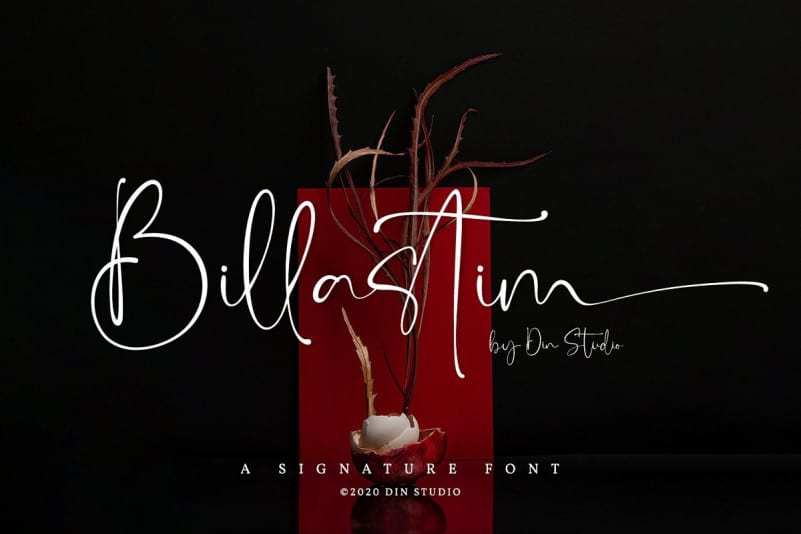
Billastim Font
Billastim Script Font is a script font created by Din Studio with elegant chic flair. It will broaden the selection of font styles for designers who try to produce a variety of presentations. It is perfect to be used on your website, for your social media branding, Pinterest banners, printed products, and more!